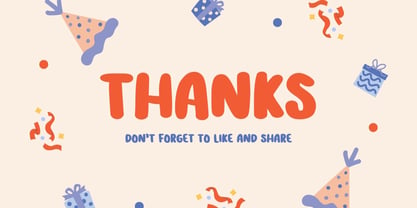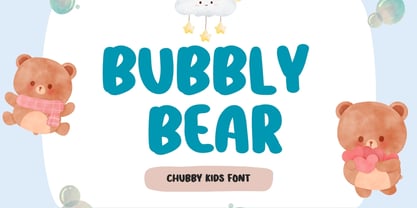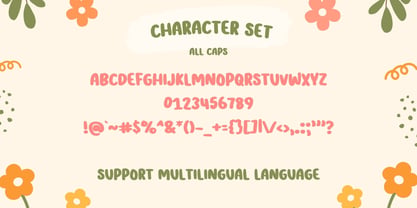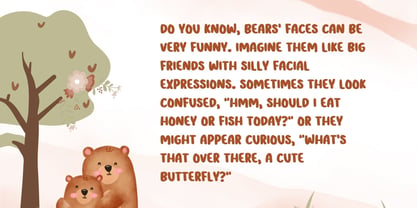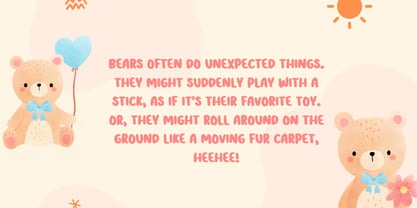
Bubbly Bear
by Graphicfresh
The Bubbly Bear Font Family was designed by Muhammad Husni Haikal and published by Graphicfresh. Bubbly Bear contains 2 styles and family package options. More about this family
Bubbly Bear Handwriting is a fun, playful handwritten font designed to bring a cheerful and friendly vibe to your designs. Featuring soft, rounded letterforms with a slightly bouncy feel, this font delivers a warm and approachable look that instantly stands out. It’s perfect for kids-related projects, sweet product packaging, social media content, branding, posters, and any creative work that needs a joyful and eye-catching touch. Crafted with a natural handwriting style while maintaining great readability, Bubbly Bear Handwriting strikes the perfect balance between casual and polished. Whether you’re designing logos, quotes, packaging, or digital content, this font adds a charming and lovable personality that connects effortlessly with your audience.
Designers: Muhammad Husni Haikal
Foundry: Graphicfresh